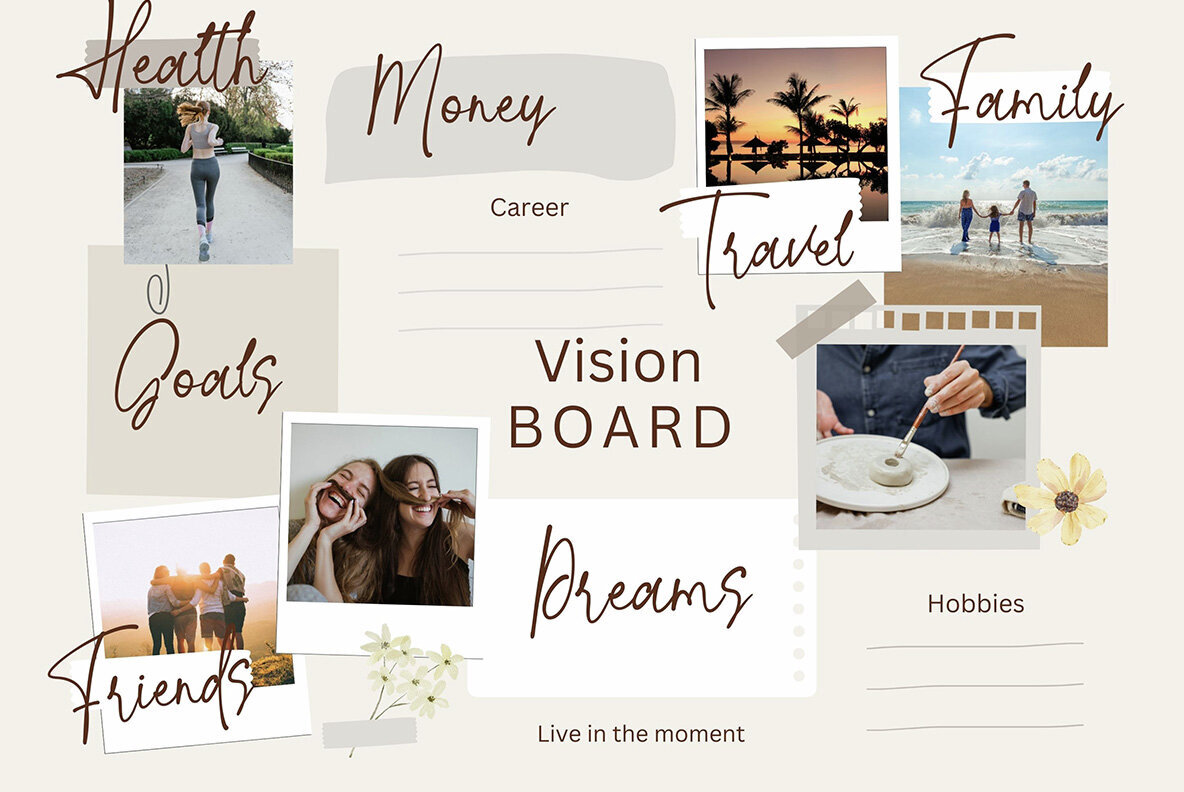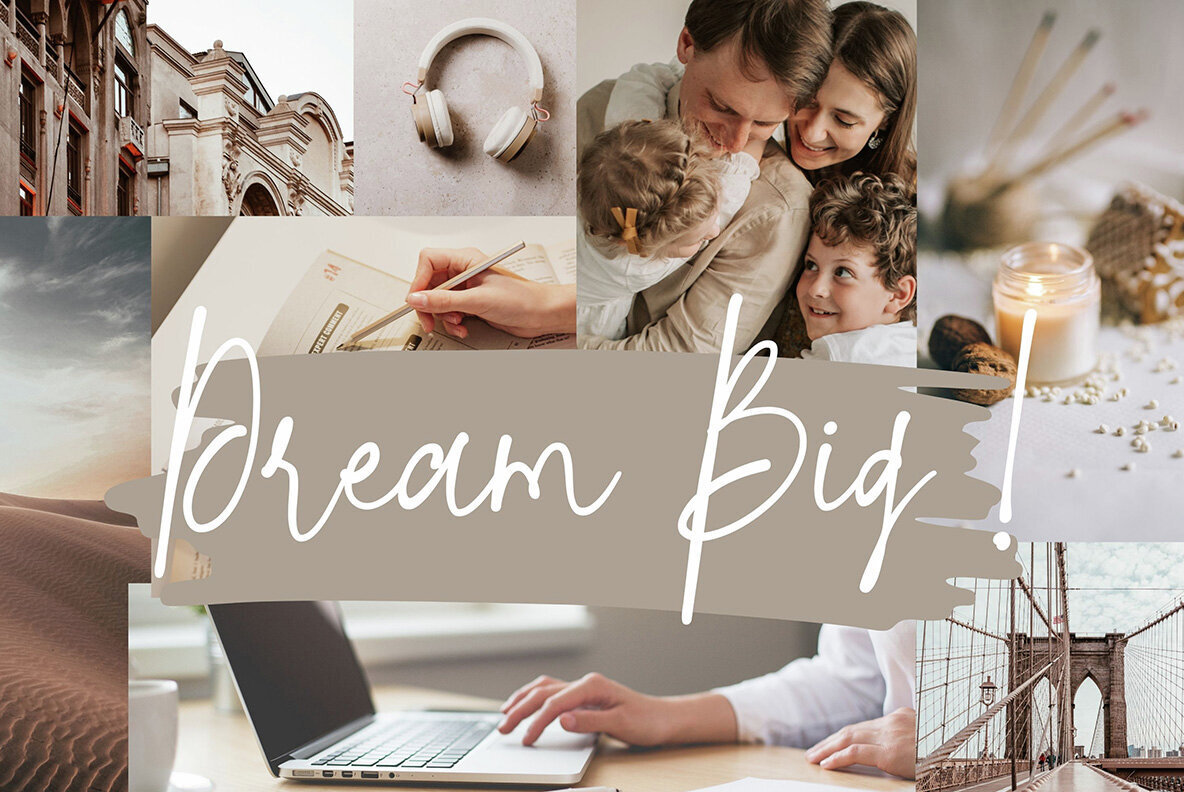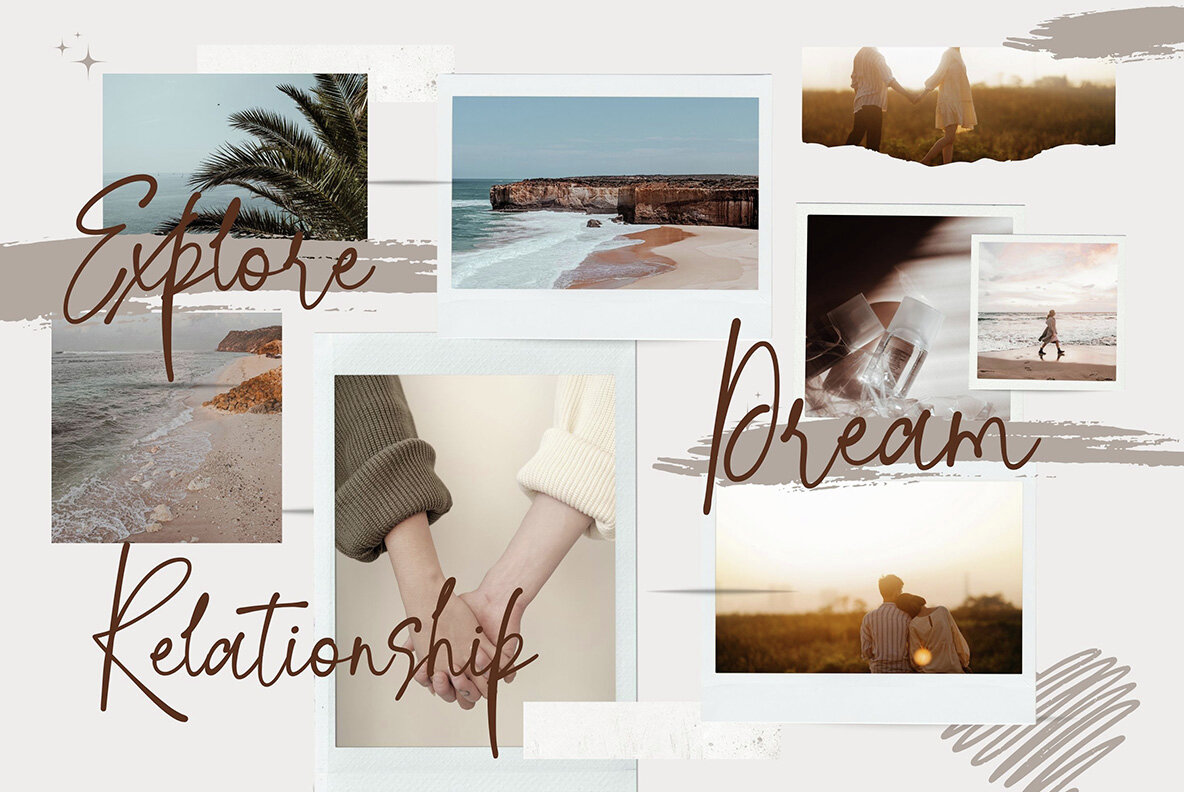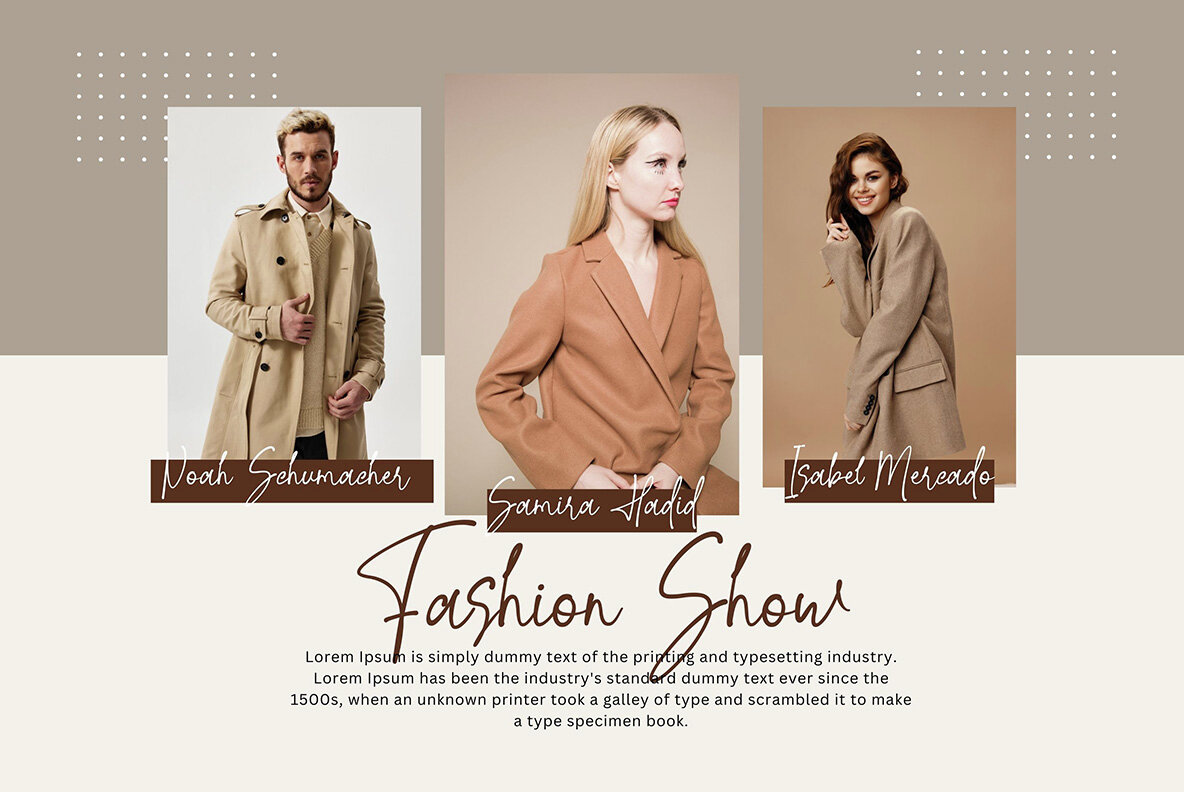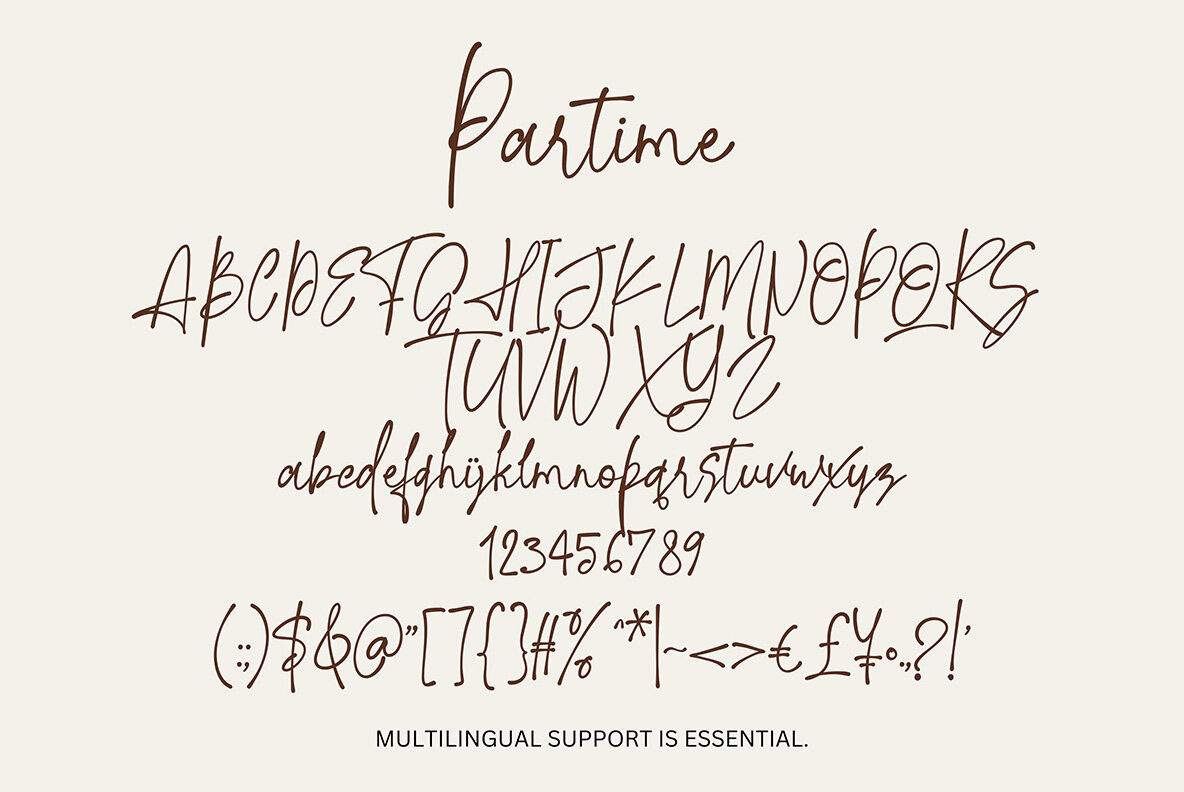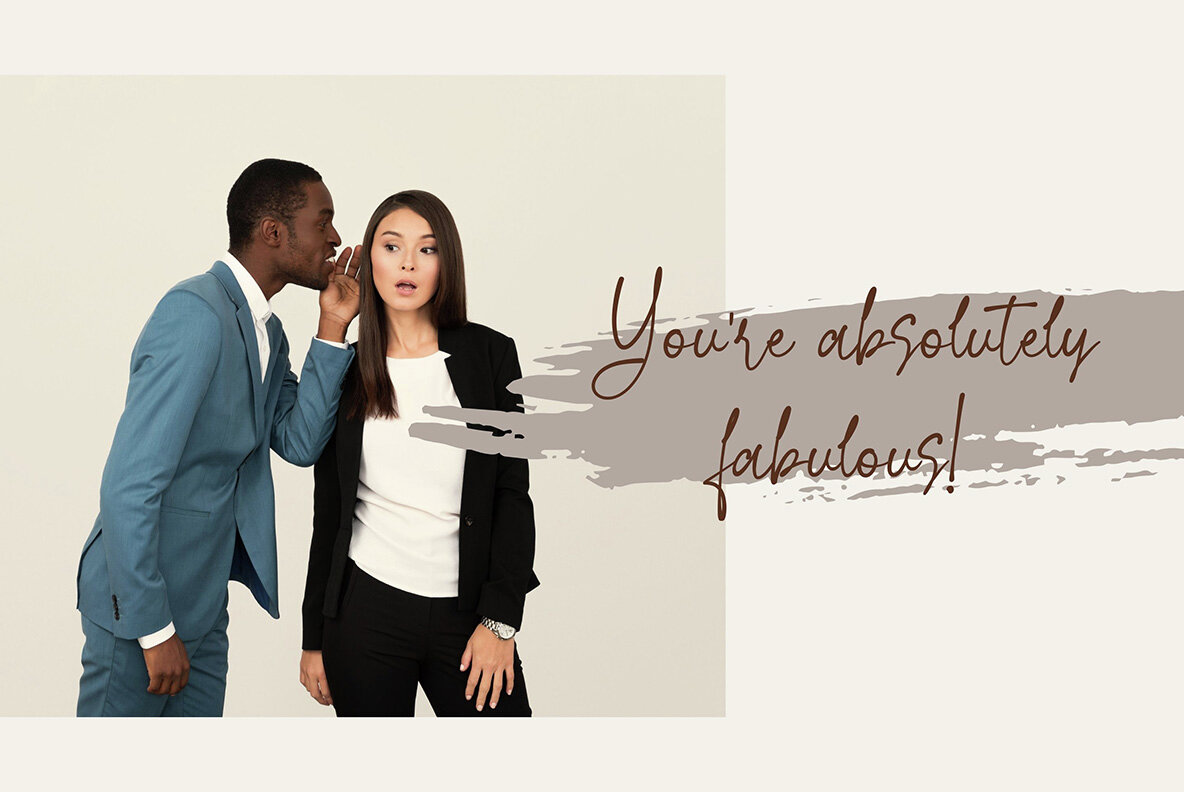
Parttime Font
Parttime Regular
Parttime is a chic and contemporary handwritten font that brings a creative flair to a wide array of projects. Ideal for logos, invitations, stationery, wedding designs, social media content, advertisements, product packaging, labels, photography, watermarks, special events, and more. If you have any questions or need assistance, feel free to reach out.Parttime: A Modern Handwritten Font